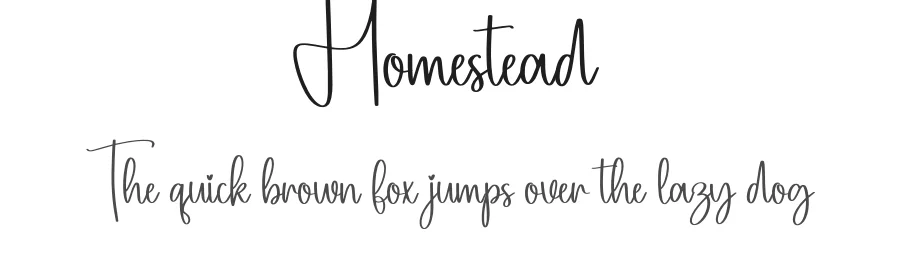
About Endinglove Font
Endinglove ships with 1 OpenType feature you can switch on in apps that support them (Illustrator, InDesign, Affinity, Figma, CSS font-feature-settings).
Endinglove Font is a script font that shines as a display or heading face. Pair it with a clean sans-serif or serif font for body text β the contrast creates a clear hierarchy while the two styles stay balanced and easy to read.
Endinglove Font